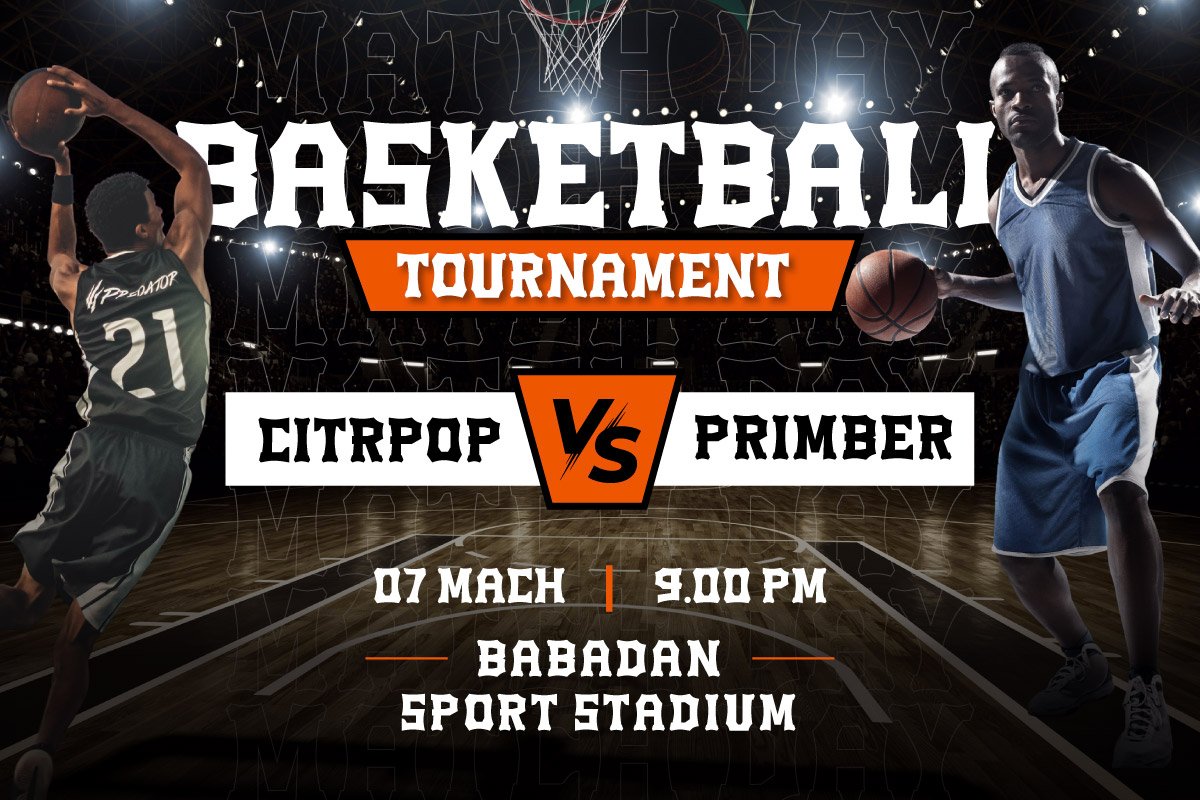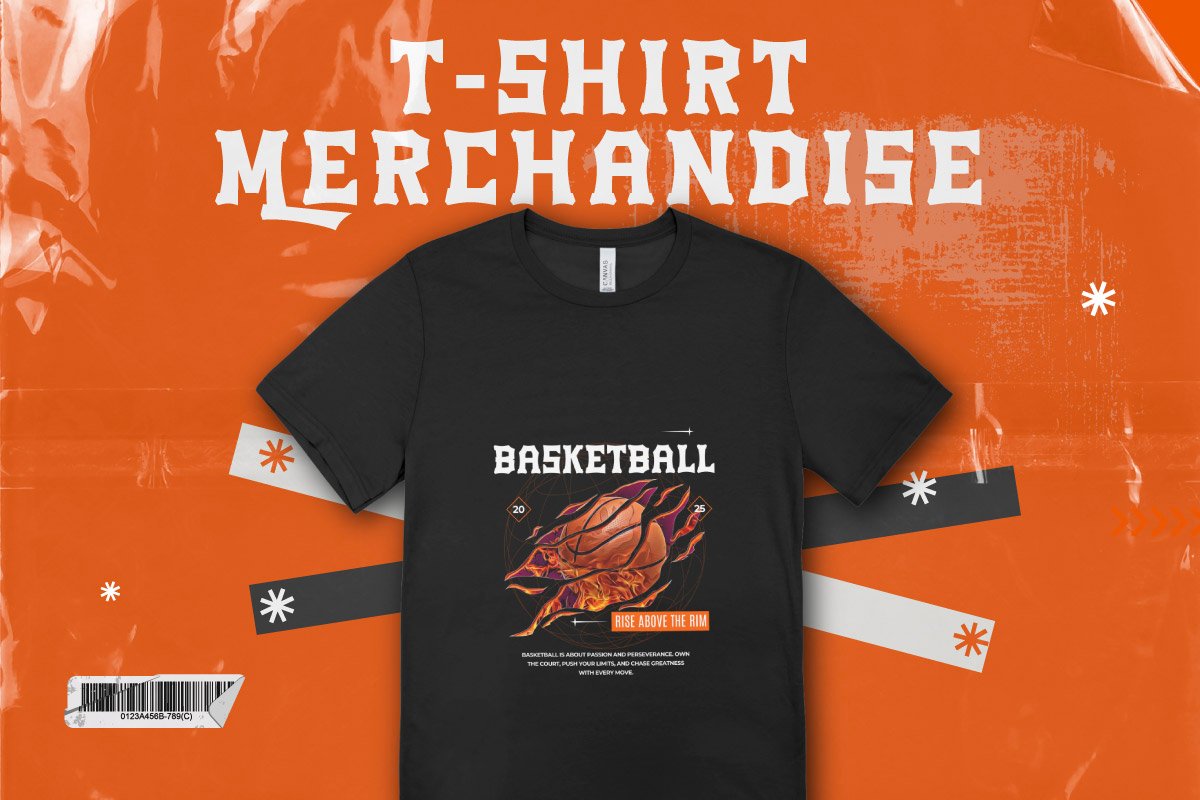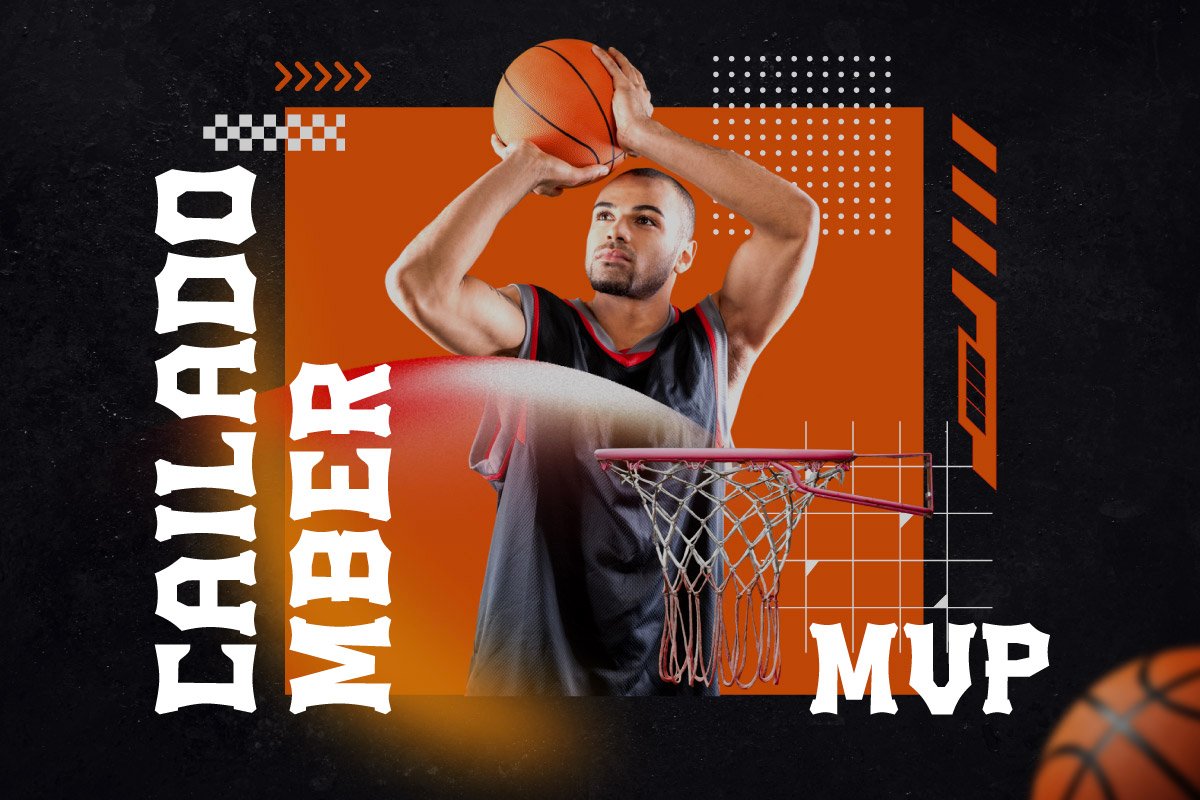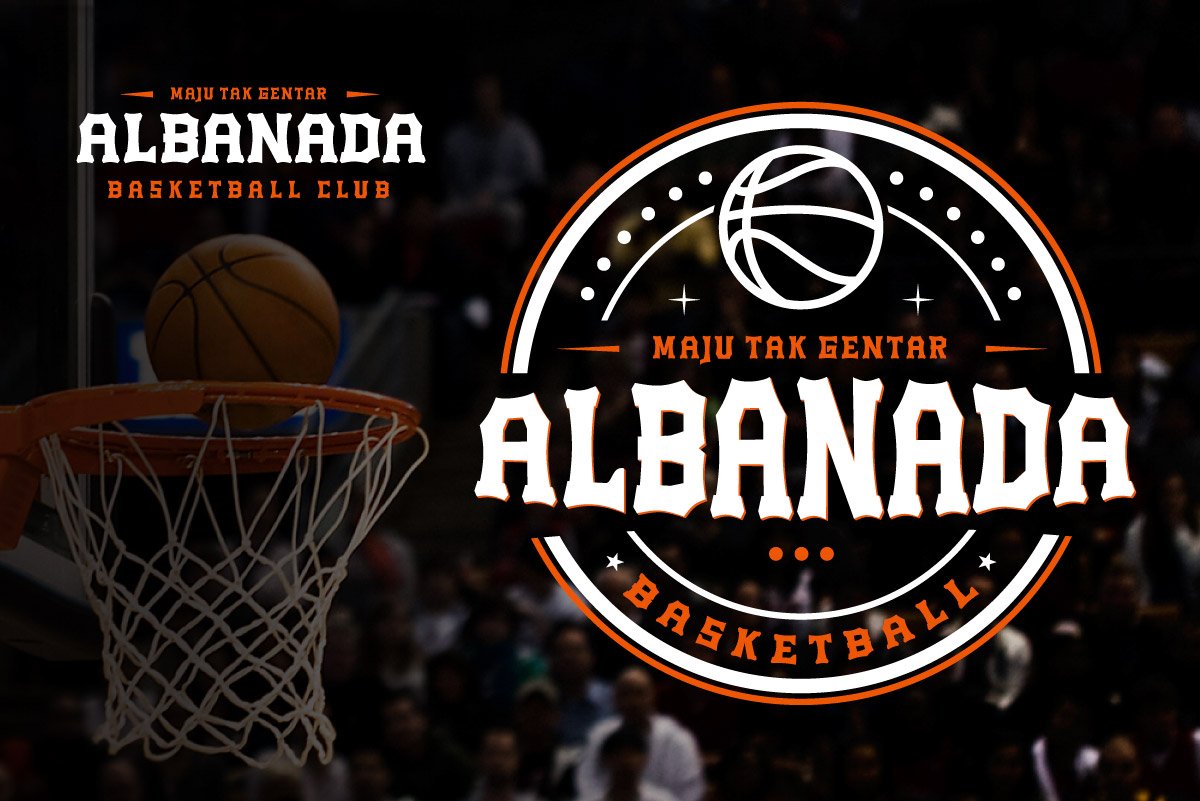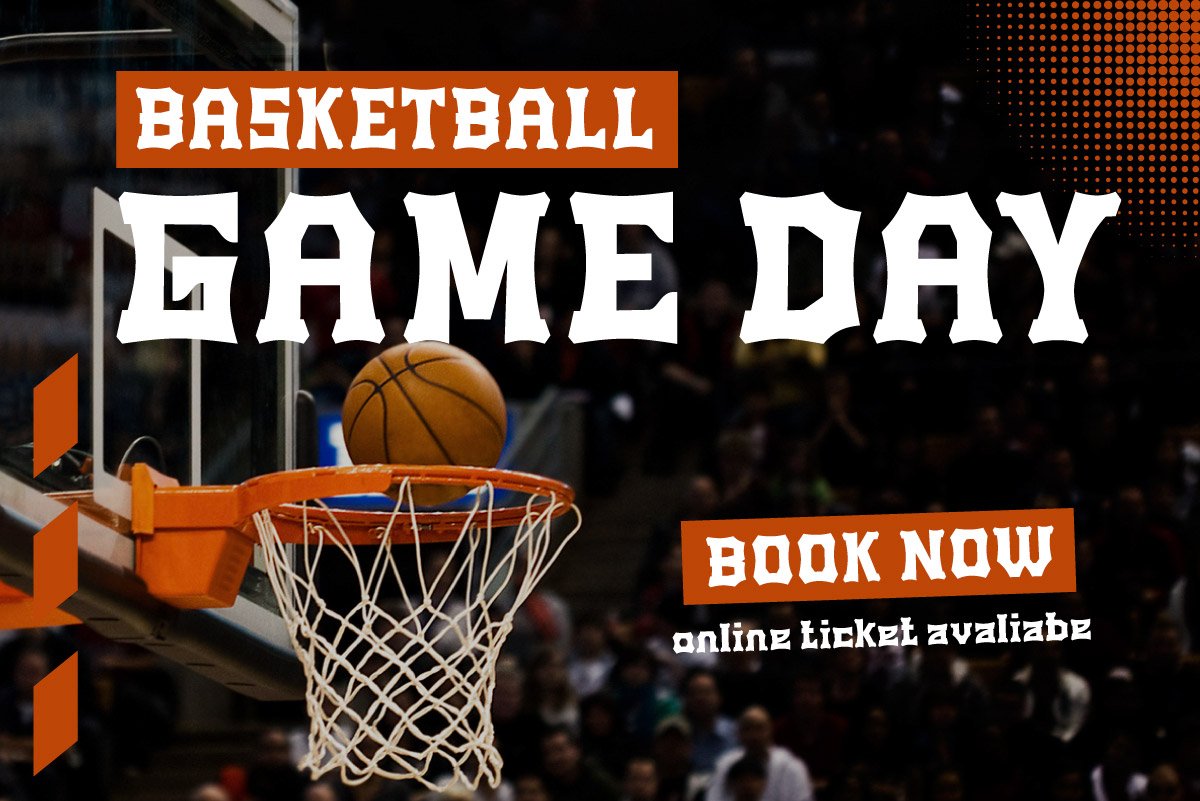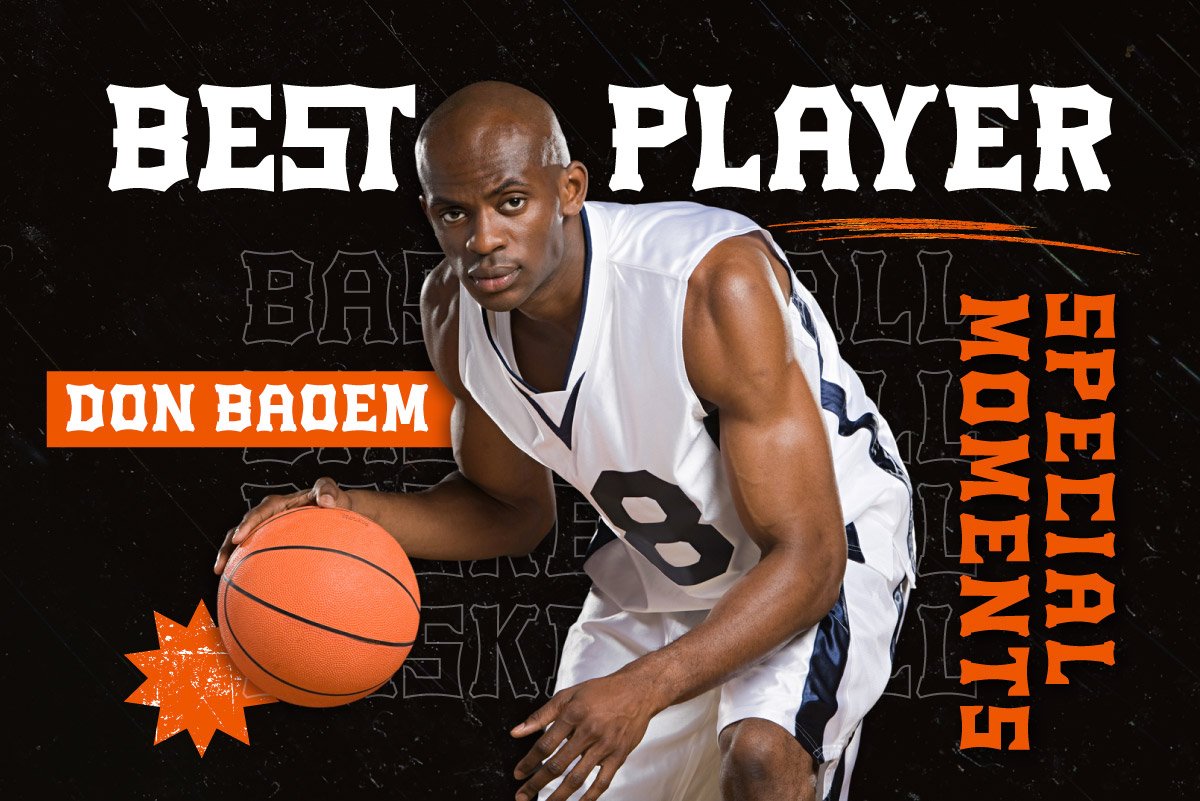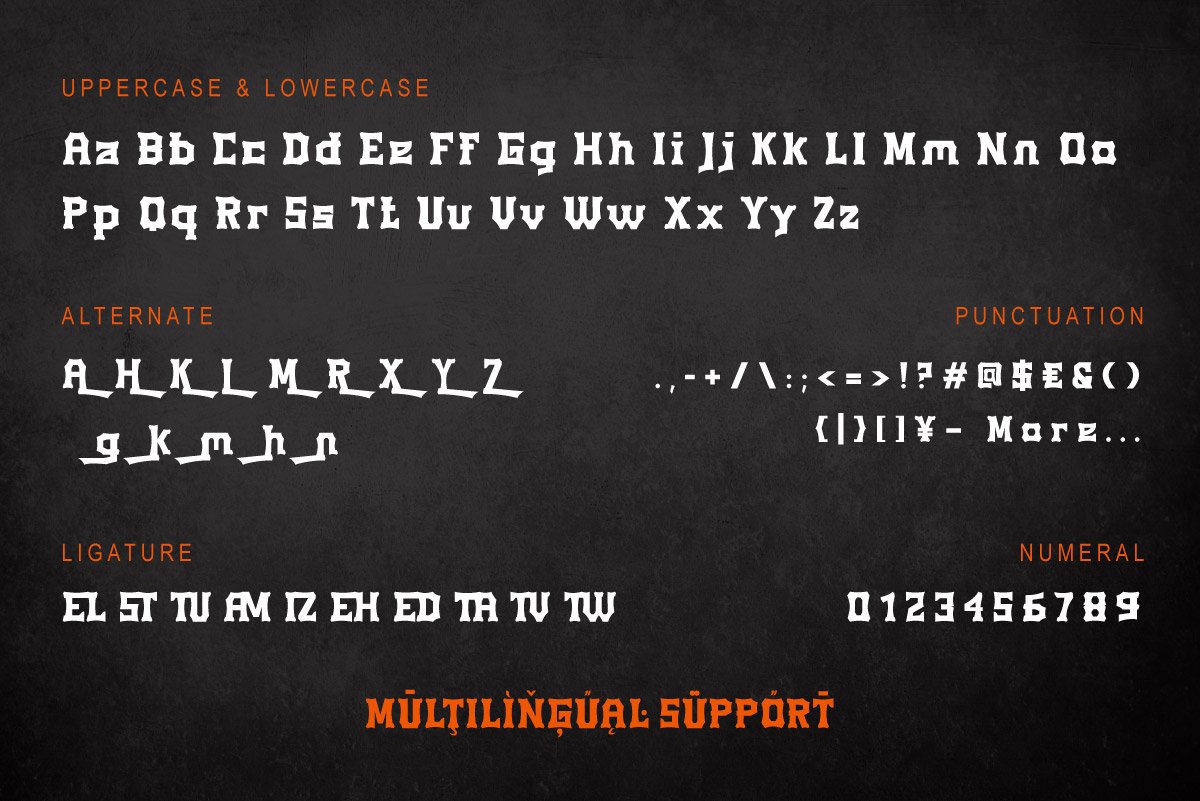
- Vanole – Dynamic Basketball Font for Sports Branding
Bring the energy of the court to your designs with VANOLE, a bold and powerful basketball font perfect for sports branding, game posters, team jerseys, and event promotions. Inspired by the fast-paced action and intensity of basketball, this font is ideal for creating eye-catching headlines, player graphics, and event schedules. Whether you’re designing for a professional team or a streetball tournament, VANOLE will make your typography stand out with confidence and strength.